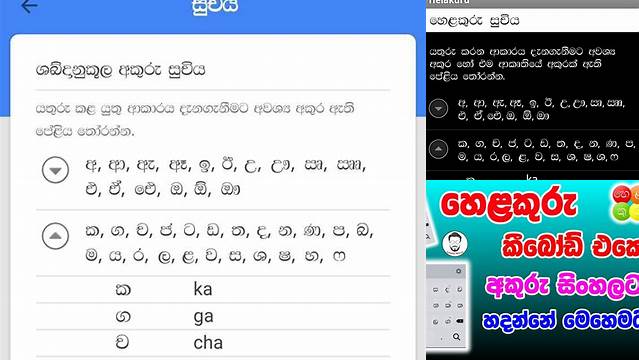
Helakuru Sinhala Font: Free Download & Installation Guide
1. What Exactly is Helakuru Font? Unveiling the Digital Script
Hey there! Let's start with the basics. Helakuru is more than just a font; it's a bridge that connects the digital world with the beauty of the Sinhala language. Created by Bhasha Lanka (Pvt) Ltd, it's specifically designed to render Sinhala characters beautifully on digital platforms. Unlike some other fonts, Helakuru has gained popularity for its readability and compatibility across various devices and software. It's become a go-to for anyone looking to type or display Sinhala text, from casual users to professional designers and developers. What makes Helakuru so unique is its accurate representation of Sinhala characters, which includes the complex akshara (letters) and matra (vowel signs) that are part of the Sinhala script. This font ensures that the text appears correctly and is easily understood, maintaining the cultural and linguistic integrity of the language. Furthermore, the Helakuru font family provides a range of styles, from standard to bold and italic, allowing users to choose the best presentation that fits their needs. Whether you are creating social media posts, writing documents, or designing websites, the Helakuru font offers a reliable and aesthetically pleasing solution for displaying Sinhala text. The font also helps in promoting Sinhala language and cultural heritage in the digital space, making it accessible to a broader audience. So, when we talk about Helakuru Sinhala Font Free Download, we are discussing a tool that gives you the power to use Sinhala in all your digital communications with ease and style.
1.1. The Origins and Creators of Helakuru Font
Alright, let's explore the roots. The Helakuru font is the brainchild of Bhasha Lanka (Pvt) Ltd, a company dedicated to developing language technology solutions. They saw the need for a user-friendly and visually appealing Sinhala font, and they delivered. The creation of Helakuru was driven by a desire to bridge the gap between technology and the Sinhala language. The creators put in a lot of effort to ensure that the font was not only functional but also beautiful, correctly representing the complex characters of the Sinhala script. Bhasha Lanka’s commitment to preserving and promoting the Sinhala language through technology is clear through the development of this font. The team at Bhasha Lanka recognized the importance of having a high-quality font that could be used across all types of digital platforms. The aim was to ensure that Sinhala speakers could express themselves clearly and with style in the digital world. The team meticulously designed the font, paying close attention to every detail to make sure that the characters looked correct and were easily readable. From the start, Bhasha Lanka had a vision to make the font accessible to everyone, which is why they offered the Helakuru Sinhala Font Free Download. Their dedication to the language and the user experience made Helakuru a success, and the company continues to develop innovative language solutions, helping Sinhala speakers in the digital age. Today, Helakuru stands as a testament to the power of technology and the importance of digital accessibility.
1.2. Key Features That Make Helakuru Font Stand Out
Let's get into the specifics. What makes Helakuru stand out? Firstly, it's the clarity of the characters. It accurately renders the Sinhala script, ensuring that every akshara and matra is displayed correctly. This is particularly crucial for Sinhala, where small differences in character shapes can change the meaning of words. Secondly, its versatility is another plus. The font comes in multiple styles (regular, bold, italic), offering flexibility in how you present your text. The font has been designed to be compatible with different operating systems, and applications, guaranteeing smooth use on whatever platform you're on. Users can easily select the font from the dropdown menu. Furthermore, it's often designed to be optimized for both print and digital use, so it looks great whether you're writing a document, creating graphics, or designing a website. This means that anyone can easily read and understand Sinhala text. The quality of the font also makes it perfect for both personal and professional usage. Moreover, Helakuru is often updated to ensure it maintains compatibility with newer technologies and to include any new characters or features that might be introduced. The focus is on providing a reliable and user-friendly experience. With each update, the aim is to improve the readability and usability of the font, ensuring that users can easily display and share Sinhala text in any digital environment. This helps preserve the Sinhala language and keep it relevant in the digital age.